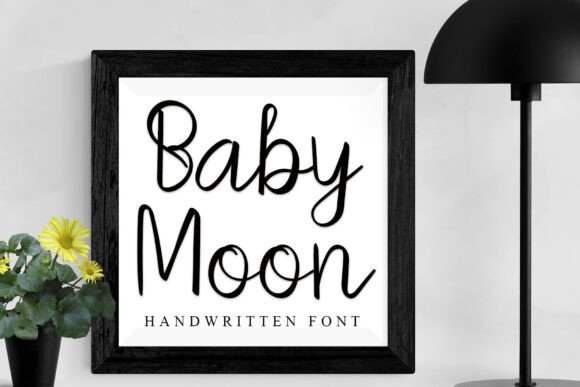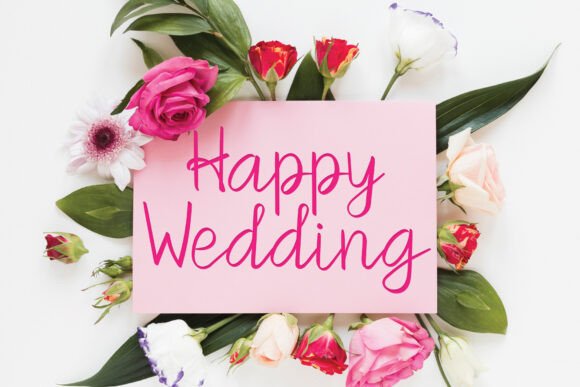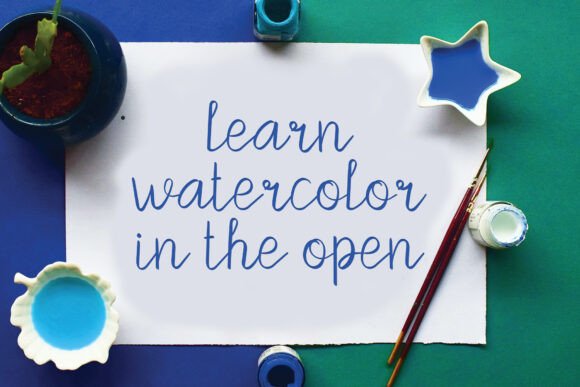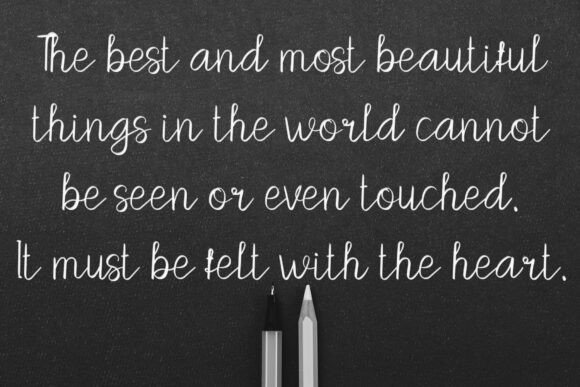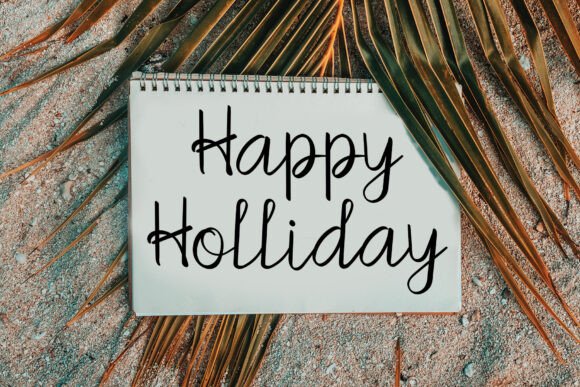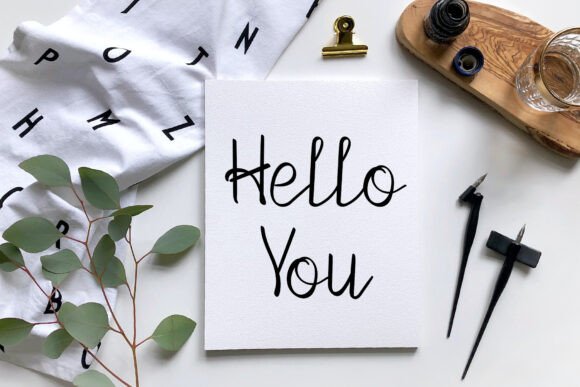
The Perfect Brushstroke: Unveiling the Magic of Baby Moon Font
As designers, we’ve all been there – staring at a blank page, trying to bring our vision to life. It’s in those moments of creative uncertainty that the perfect font can make all the difference. For me, it was the discovery of Baby Moon Font that sparked a wave of inspiration. This elegant script font has been a game-changer in my design process, adding a touch of whimsy and sophistication to every project I take on.
Baby Moon Font is a masterclass in elegance, with its varied baseline and natural, hand-made touch making it perfect for everything from wedding invitations to billboards. With its PUA encoding, designers can access all the glyphs and swashes they need to create truly spectacular creations. Whether you’re a seasoned pro or just starting out, Baby Moon Font is a valuable addition to any designer’s toolkit.
- Font Family: Baby Moon
- Unique Characteristics: Hand-drawn, whimsical design with a touch of elegance; suitable for children’s books, nursery decorations, and other family-friendly projects
Baby Moon Font Review
As a designer, I’ve had the chance to work with many fonts, and I must say that Baby Moon is a sweet addition to any design project. Here are my honest thoughts on what works well and what doesn’t.
- Soft and gentle feel: Baby Moon has a soothing quality that’s perfect for designs that need a calming atmosphere.
- Highly customizable: This font has a wide range of weights, from light to bold, making it easy to find the perfect fit for your project.
- Cute and whimsical: Baby Moon’s unique character makes it a great choice for designs that need a touch of playfulness.
- Limited language support: Baby Moon’s character set is not comprehensive, which might be a problem for designers working with languages that require a wide range of characters.
- Not ideal for body text: While Baby Moon is great for headings and titles, it may not be the best choice for large blocks of body text due to its size and spacing.
Baby Moon is a lovely font that’s perfect for designs that need a soft, playful touch. While it has some limitations, its versatility and customizability make it a great addition to any designer’s toolkit. I’d recommend it for projects that require a cute and whimsical feel, but be mindful of its limitations when working with languages or large blocks of text.
Some tips for getting the most out of Baby Moon Font include:
1. Using it for titles and headings to add a touch of whimsy to your design.
2. Pairing it with other fonts to create a unique and eye-catching look.
3. Using it for baby-related designs, such as nursery decor or baby shower invitations.